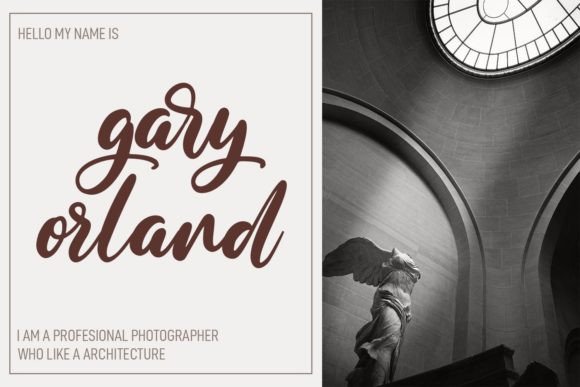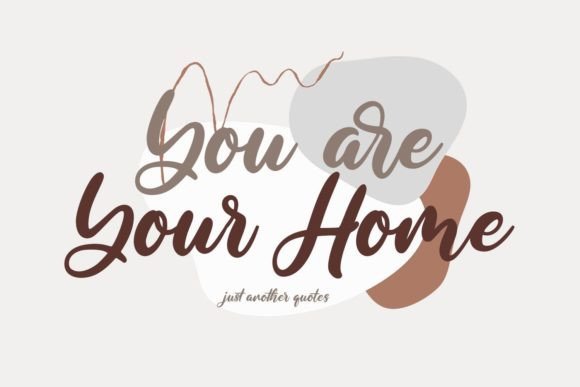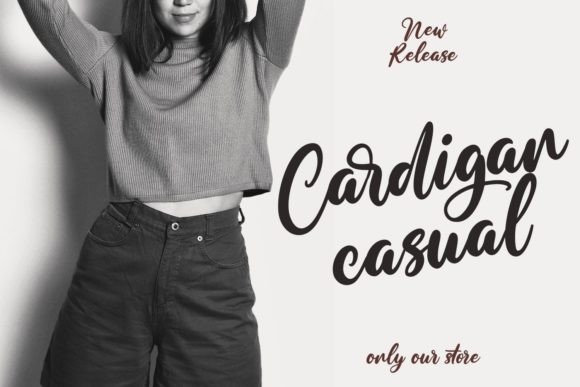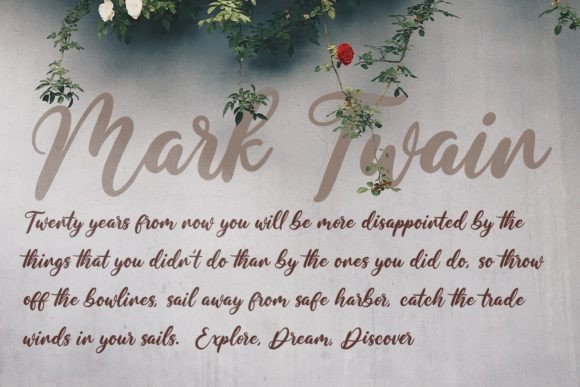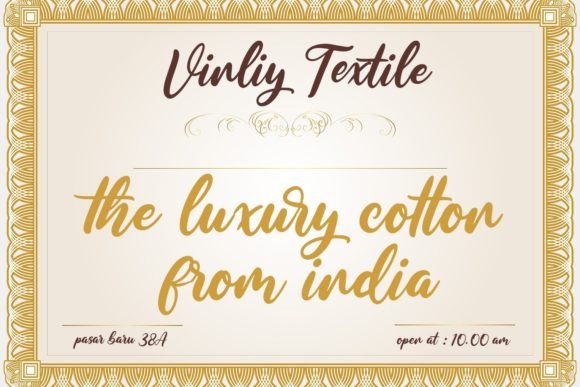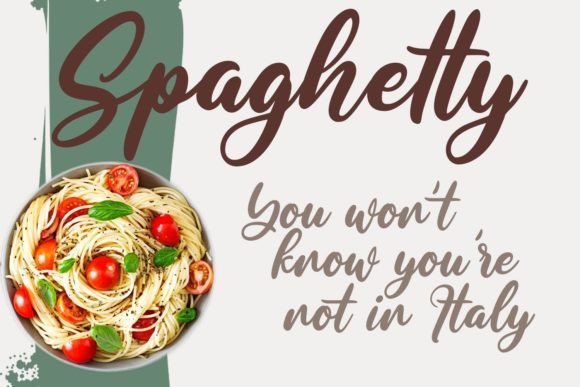
Introducing Algetura Font: Elevate Your Designs with Elegance and Creativity
In the world of typography, fonts play a crucial role in conveying messages, expressing emotions, and creating a lasting impression. For designers, crafters, and creative enthusiasts, finding the perfect font can be a daunting task. However, if you’re looking for a casual and cursive script font that exudes elegance and creativity, look no further than Algetura Font.
What is Algetura Font?
Algetura is a beautifully crafted casual and cursive script font that boasts high contrast strokes, fun characters, and a touch of ligature and alternates. This unique combination of features makes Algetura an excellent choice for a wide range of design projects, from logo design and social media graphics to movie titles, book titles, and even long-form text.
Key Features of Algetura Font
- High Contrast Strokes: Algetura’s high contrast strokes add a level of sophistication and elegance to your designs, making them perfect for projects that require a touch of luxury.
- Fun Characters: The font’s fun and playful characters inject a sense of whimsy and creativity into your designs, making them ideal for projects that require a more casual and approachable tone.
- Ligature and Alternates: Algetura’s ligature and alternates provide you with extra creative freedom, allowing you to experiment with different combinations of letters and characters to create unique and eye-catching designs.
Use Cases for Algetura Font
Algetura’s versatility makes it an excellent choice for a wide range of design projects, including:
- Logo Design: Create stunning logos that exude elegance and sophistication with Algetura’s high contrast strokes and fun characters.
- Social Media Graphics: Elevate your social media presence with eye-catching graphics that showcase Algetura’s playful and creative side.
- Movie Titles: Add a touch of luxury and glamour to your movie titles with Algetura’s elegant and sophisticated design.
- Book Titles: Create captivating book titles that stand out from the crowd with Algetura’s unique combination of high contrast strokes and fun characters.
- Short and Long Text: Algetura is suitable for both short and long text, making it an excellent choice for designers who need to create engaging and readable content.
Pairing Algetura with Other Fonts
Algetura’s versatility extends to its pairing possibilities. The font works beautifully with sans or serif fonts, making it an excellent choice for designers who want to create visually appealing and harmonious designs. Use Algetura as a headline font and pair it with a sans or serif font for your body text to create a stunning visual hierarchy.
Tips for Getting the Most Out of Algetura Font
- Experiment with Ligatures: Take advantage of Algetura’s ligature feature to create unique and creative combinations of letters and characters.
- Play with Contrast: Use Algetura’s high contrast strokes to create visual interest and add depth to your designs.
- Mix and Match: Don’t be afraid to experiment with different font combinations to create visually appealing and harmonious designs.